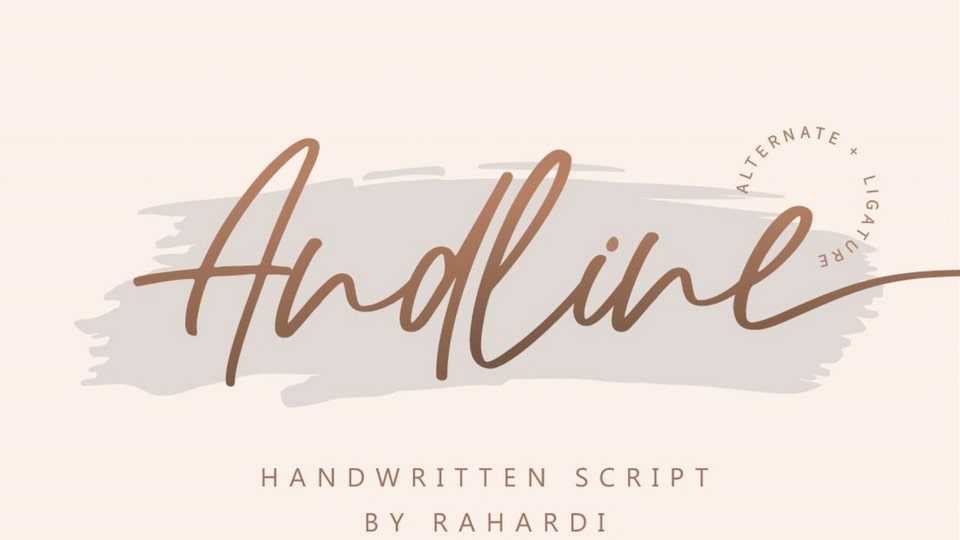
Download Andline font, a beautiful signature style script. Andline is made for any professional branding project. Each letter has a unique and beautiful touch.